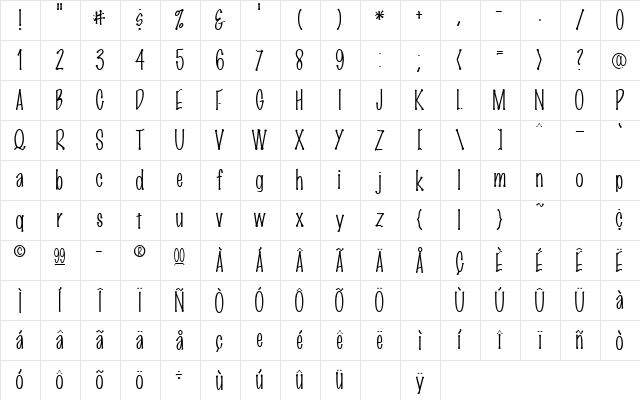
MarkerFinePoint-Plain Regular Free Font
MarkerFinePoint-Plain Regular
Design Context for MarkerFinePoint-Plain
MarkerFinePoint-Plain is a composed and adaptable typeface that performs quietly and consistently across a wide range of design contexts.
Pro Tip: Use MarkerFinePoint-Plain in both headline and body roles to test its range before committing to a single application.